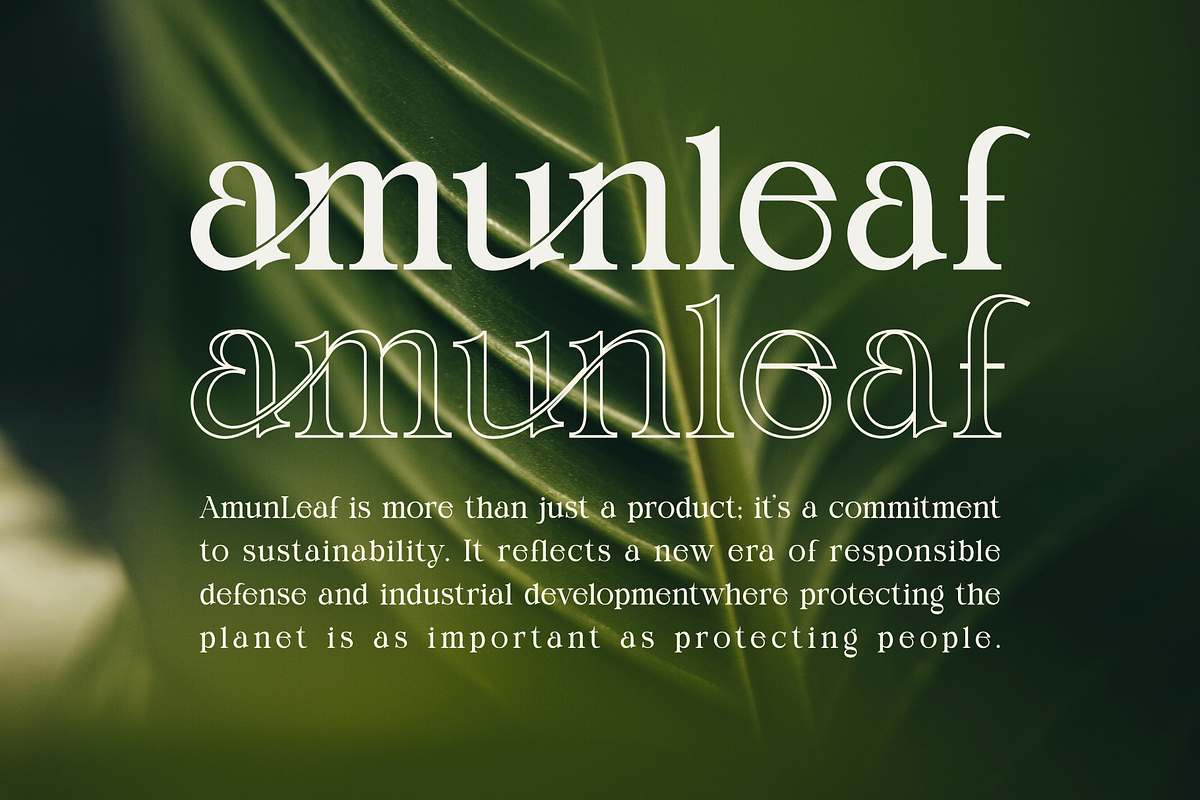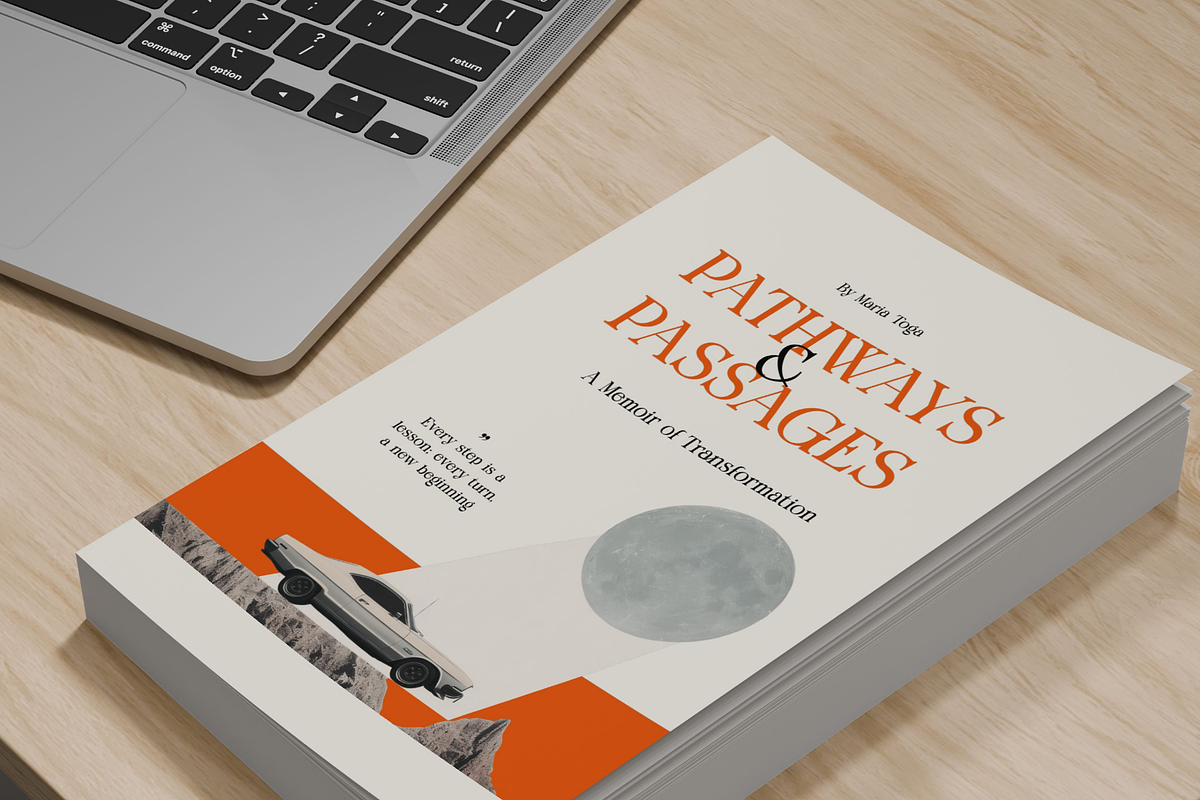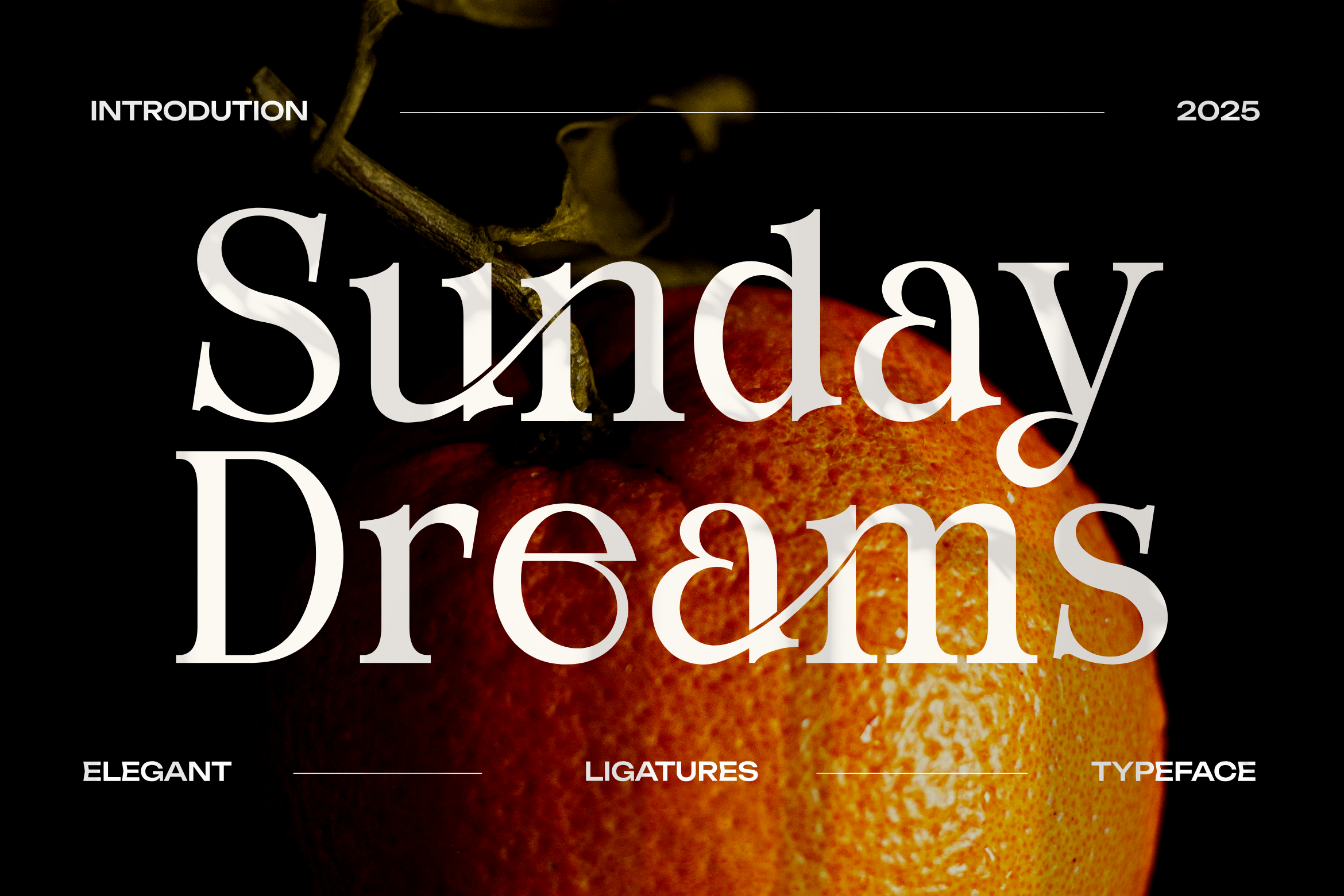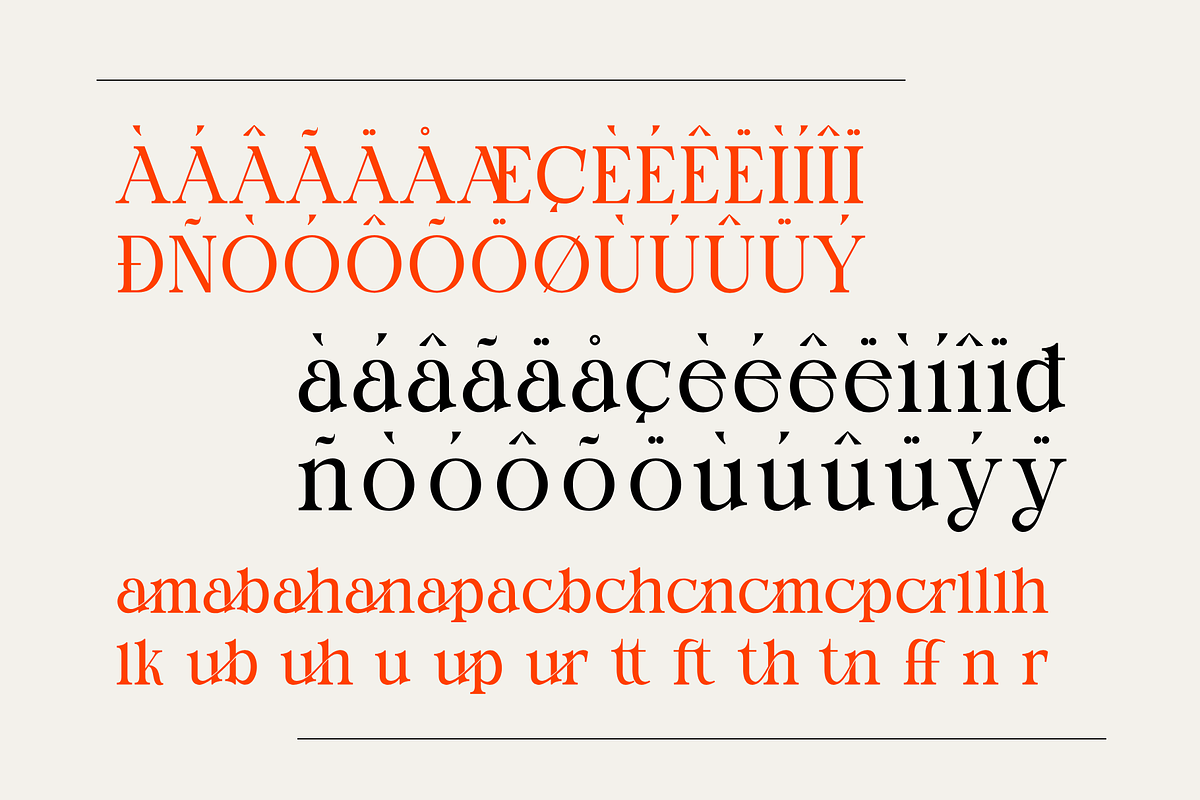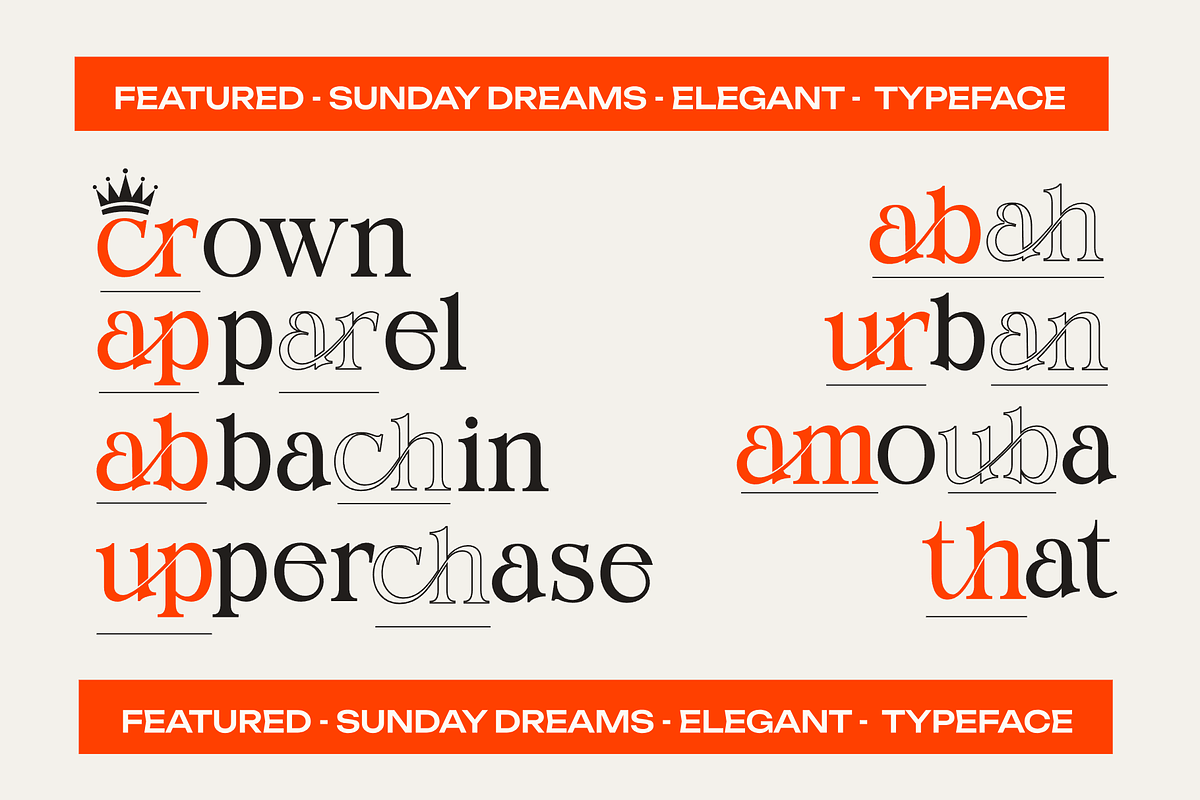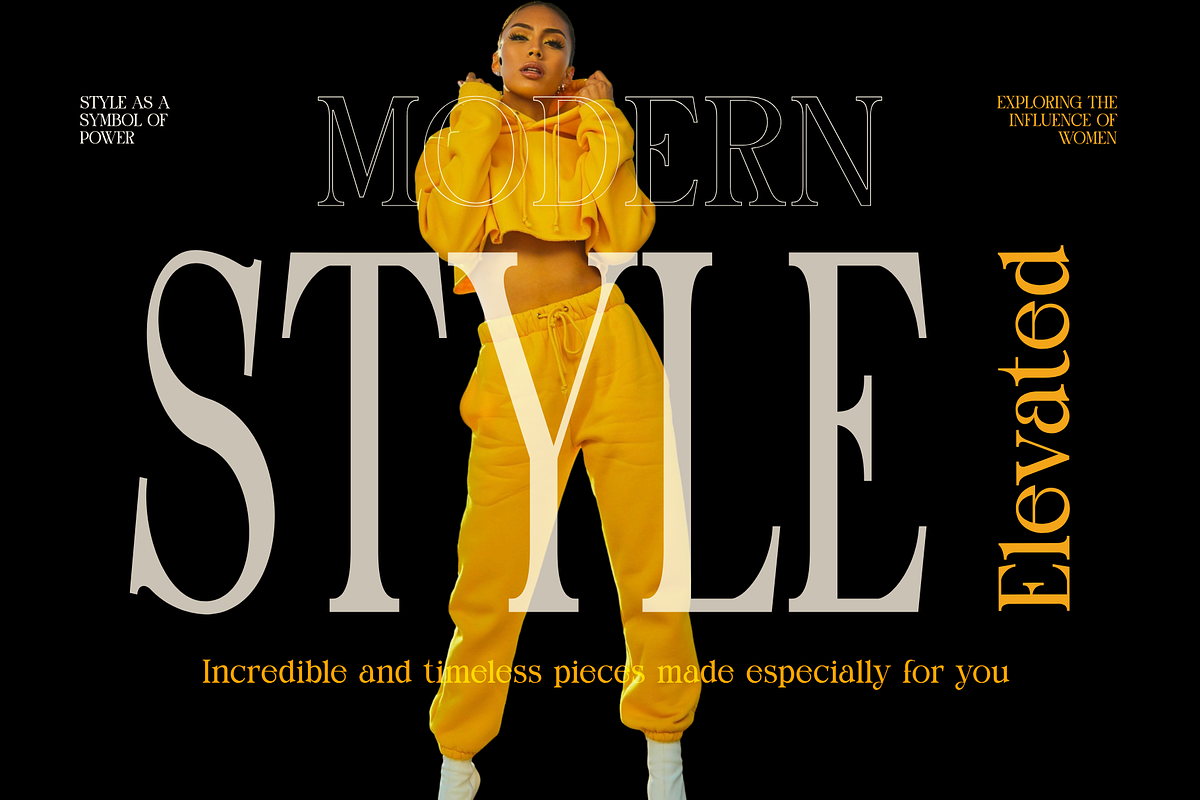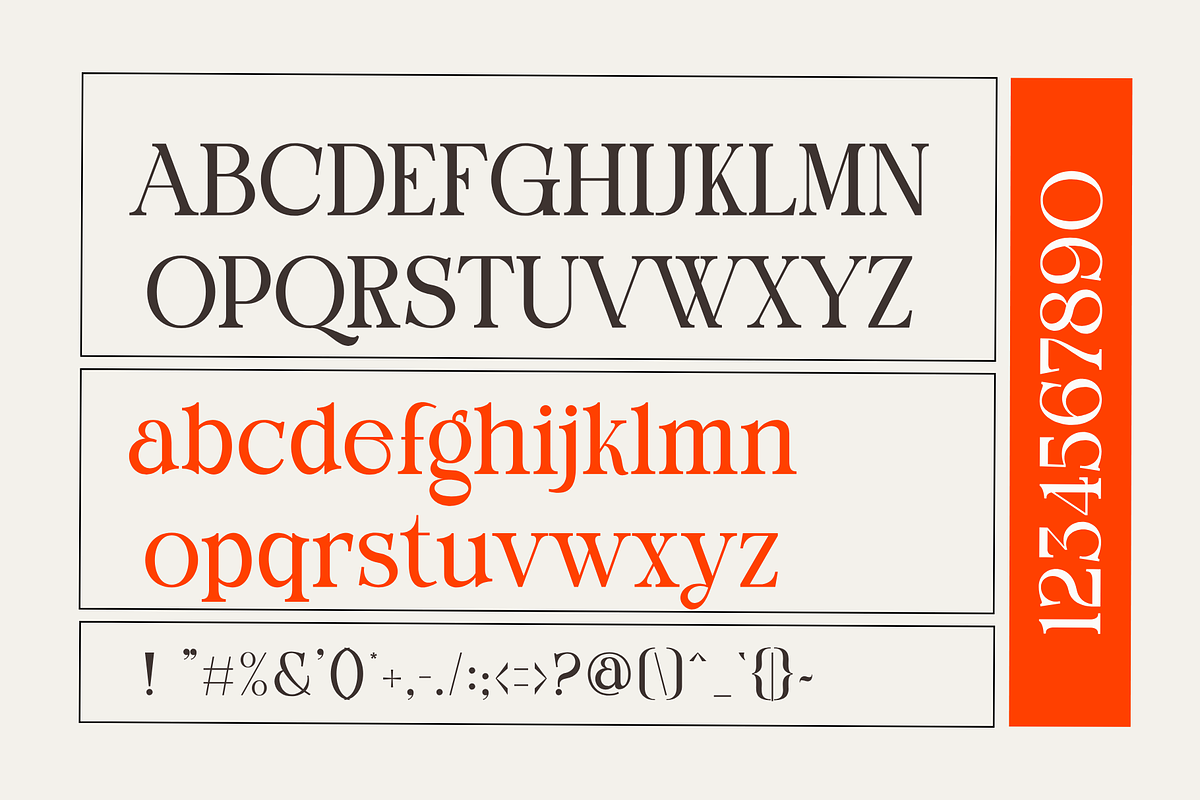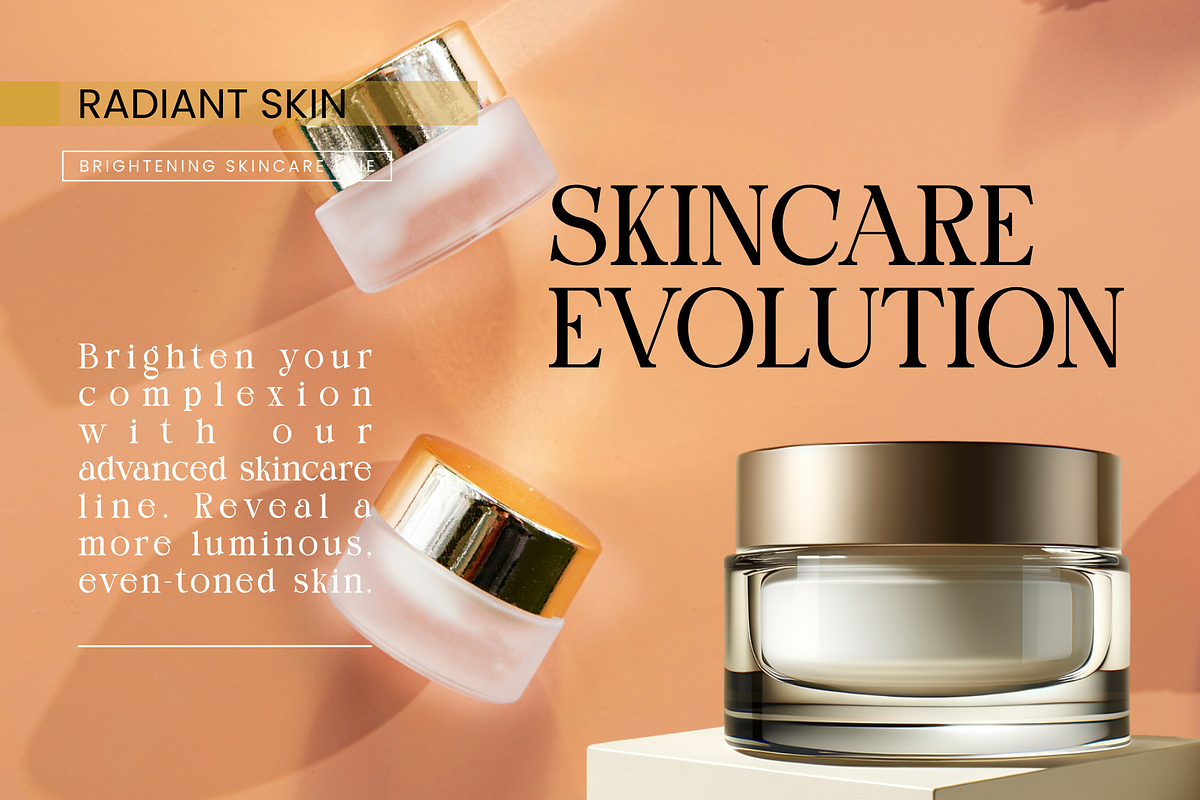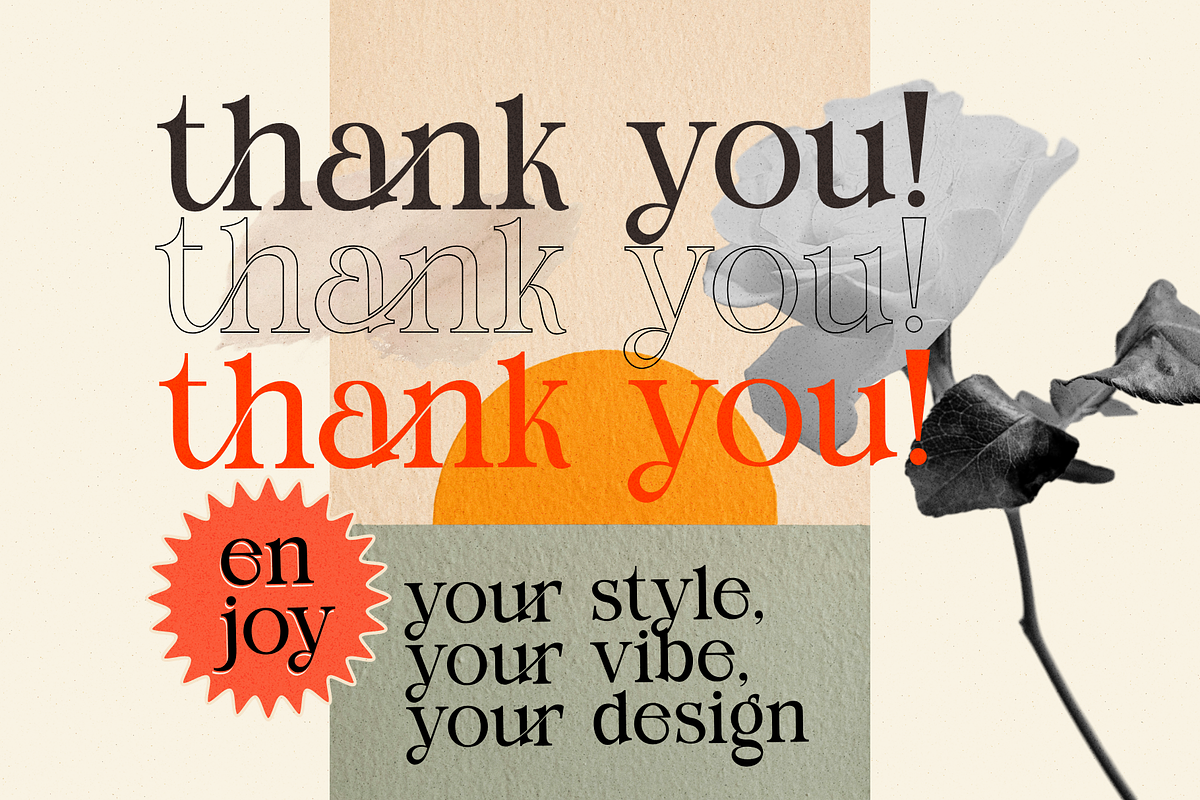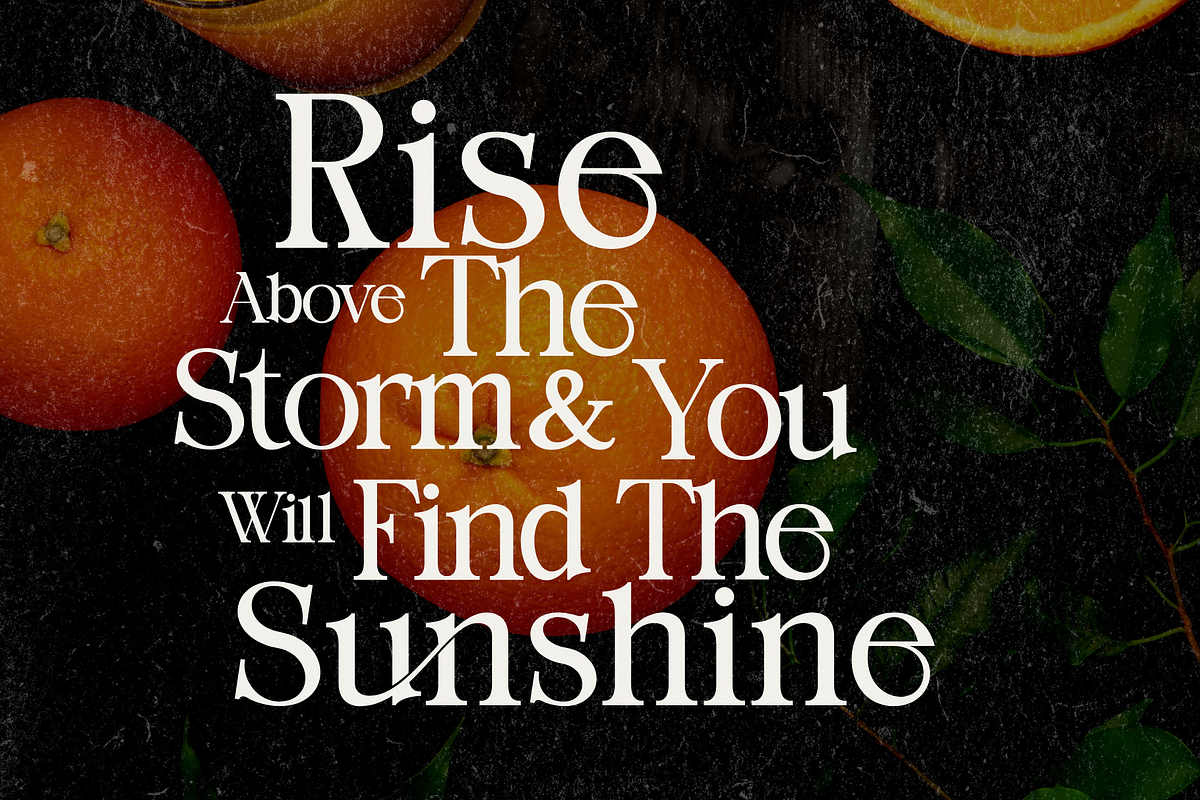
Sunday Dreams Serif Font
Sunday Dreams is a Bold Minimalist Elegant Modern font with beautiful ligatures, tons of special alternative glyphs, ornament and multilingual support. It's a very versatile font that works great in large and small sizes. Perfect for branding projects, Logo design, Clothing Branding, t-shirts design, cosmetic product, product packaging, magazine headers, or simply as a stylish text overlay to any background image.
Sunday Dreams is also included full set of:
uppercase and lowercase letters
multilingual support
numerals-punctuation
Ligature Characters